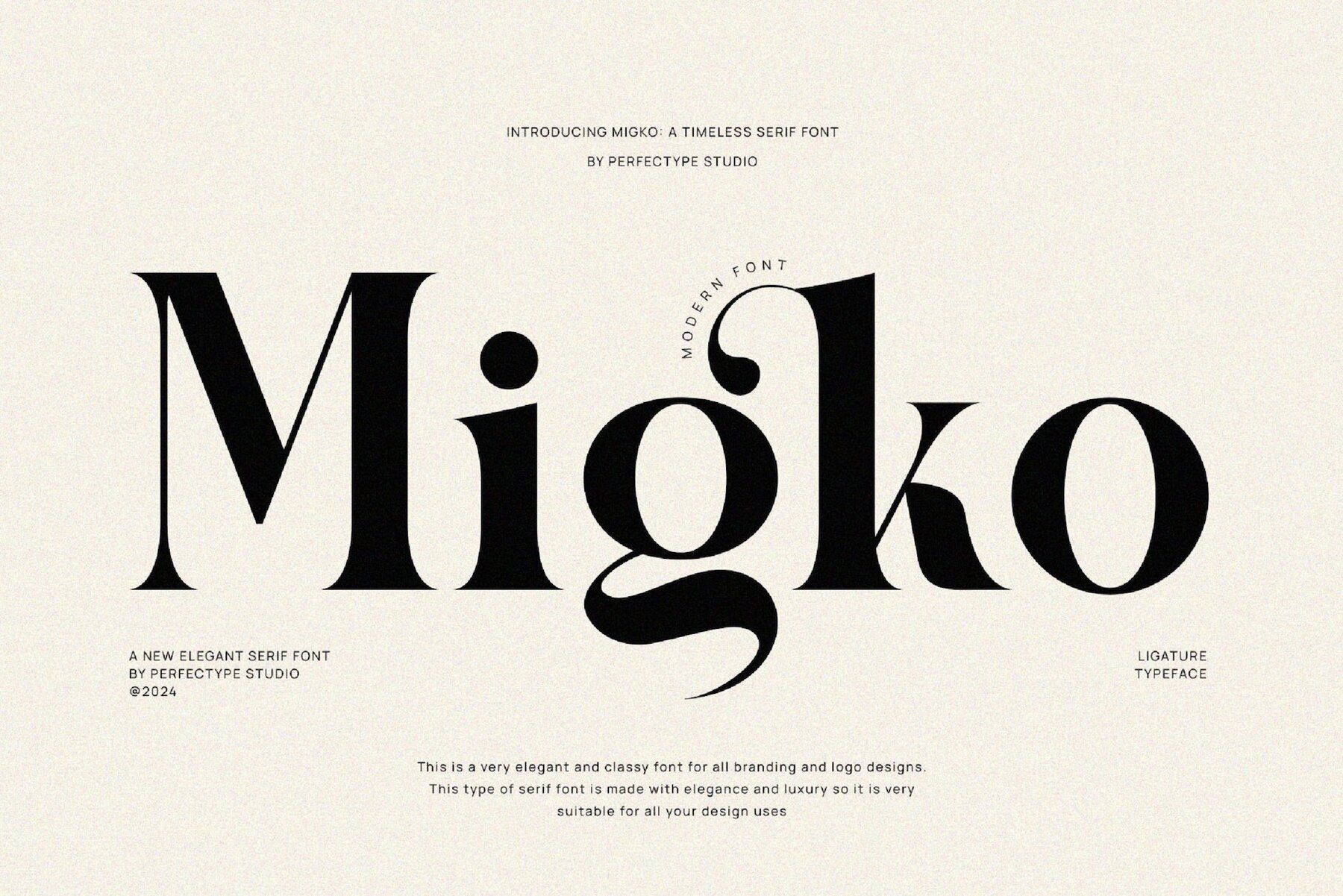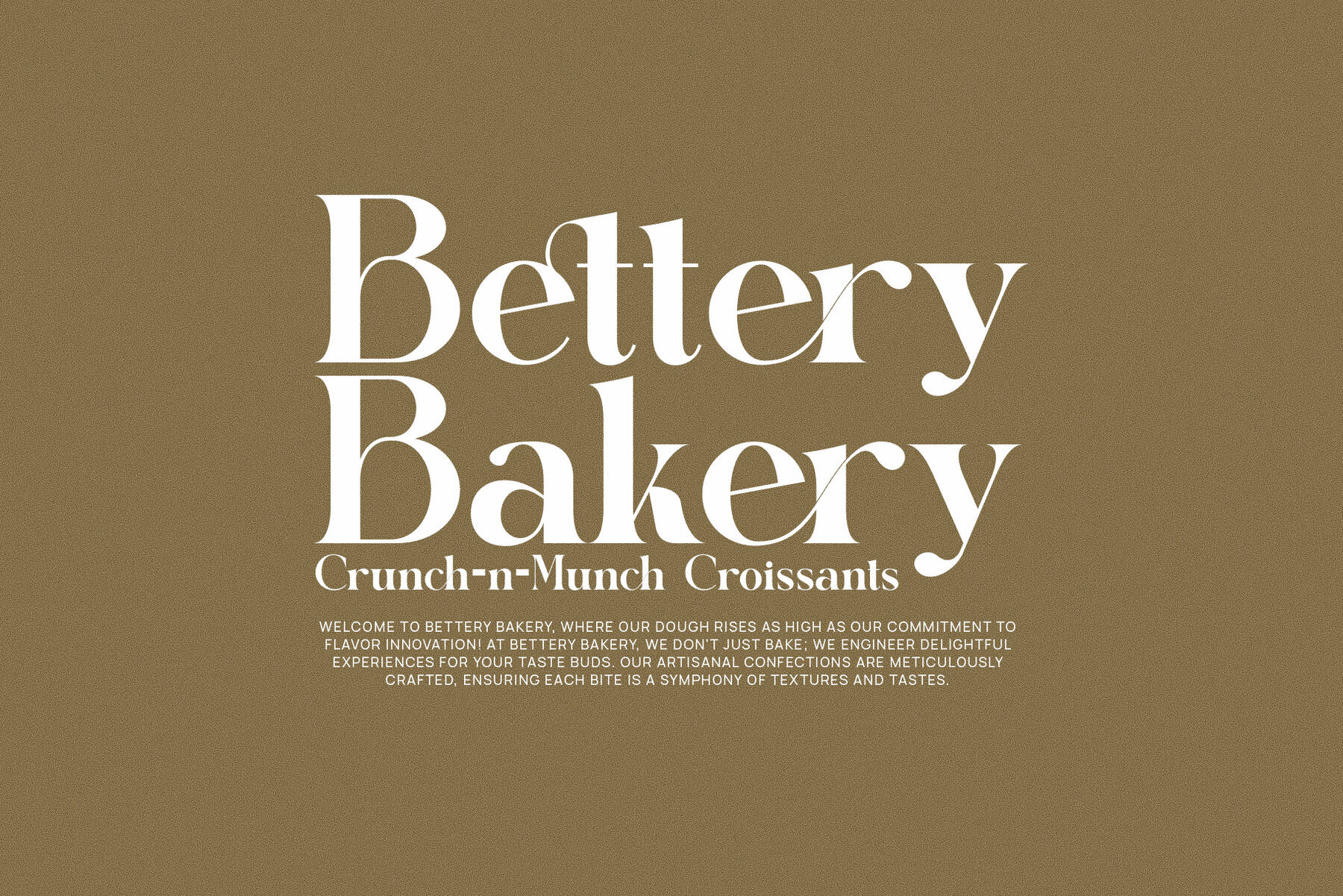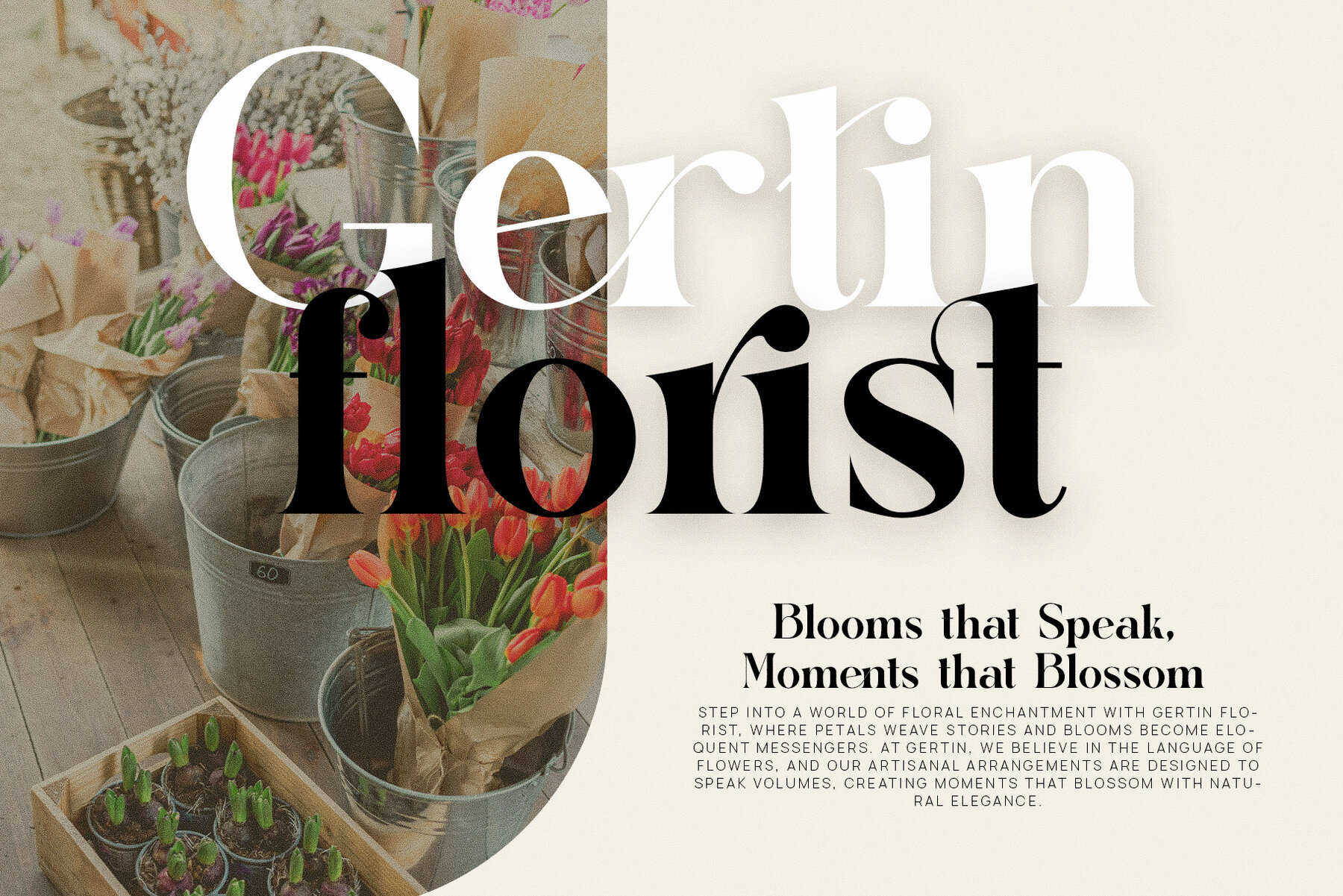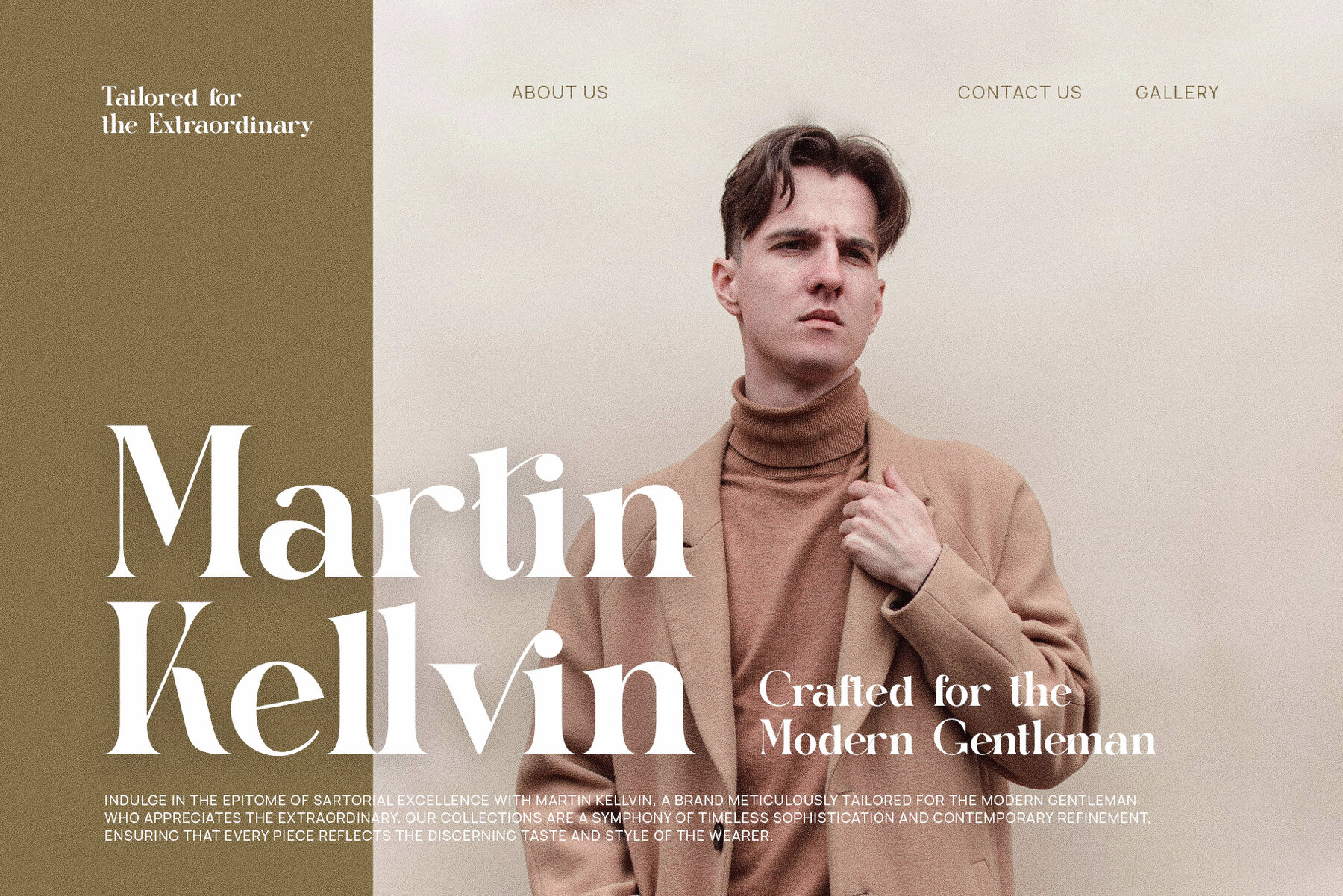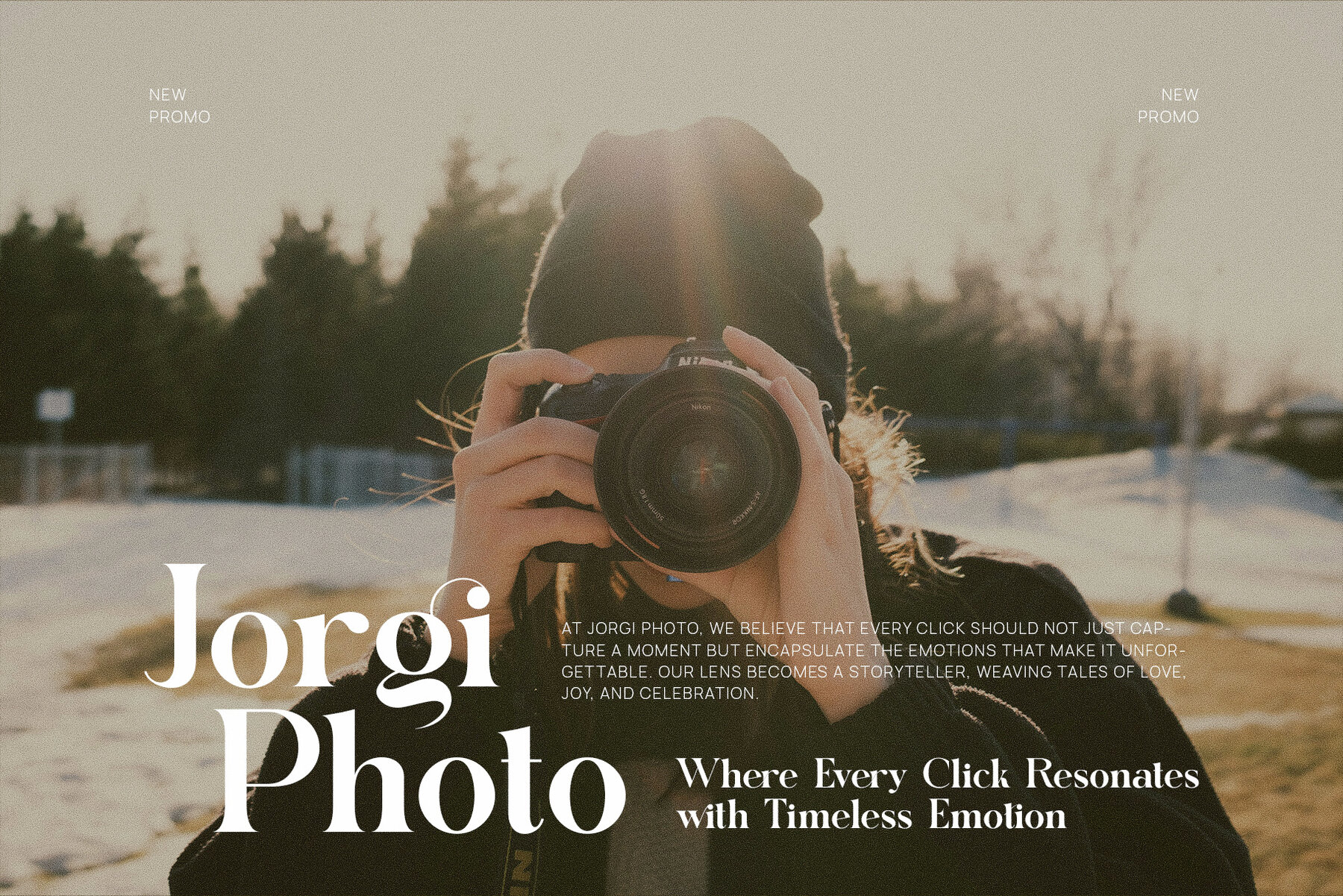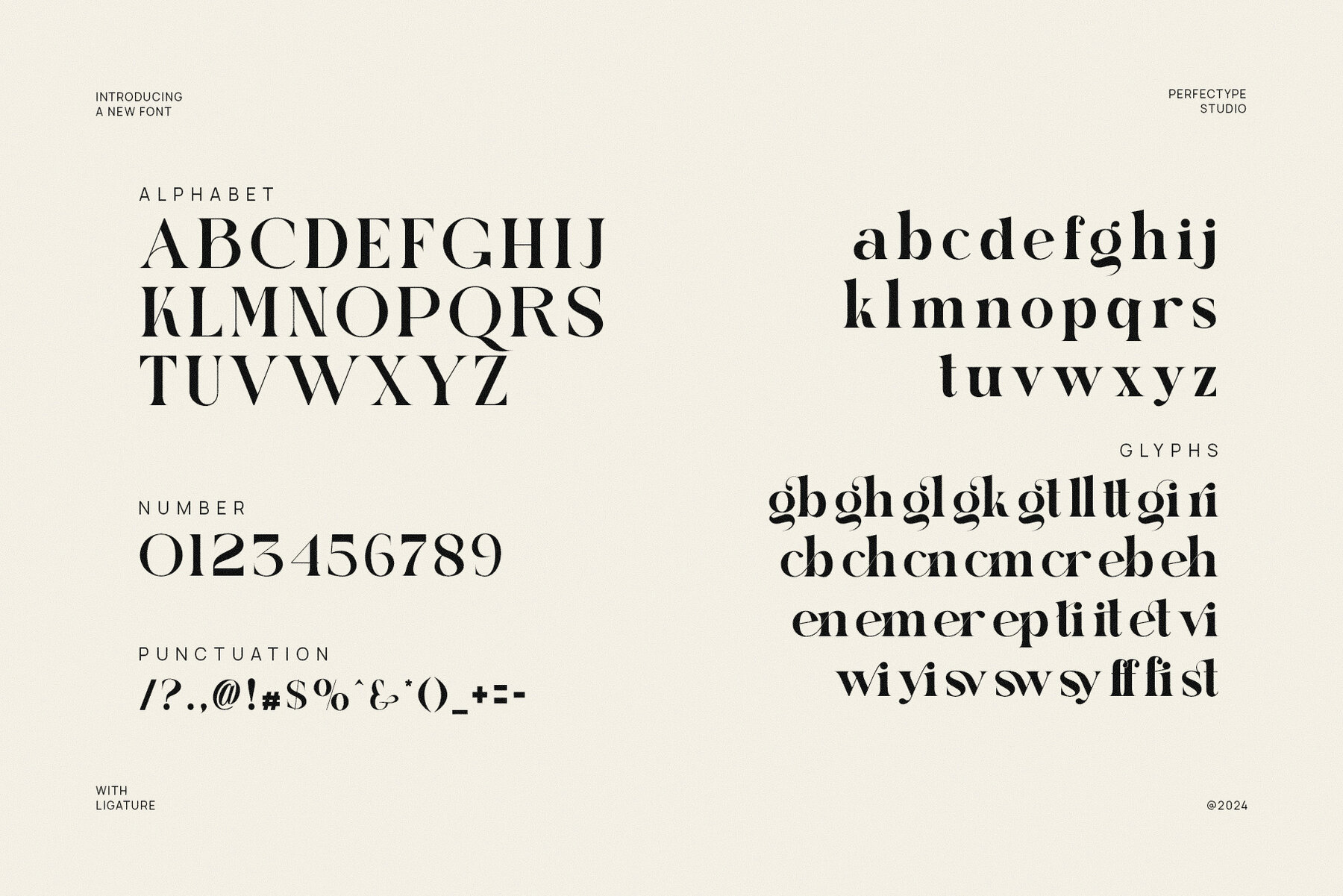
Migko Elegant Serif Font is a contemporary and sophisticated serif typeface that combines timeless charm with modern refinement. Its carefully designed letterforms feature unique shapes and exquisite details, creating an elegant and professional aesthetic. The font’s graceful ligatures and alternate characters enhance its versatility, offering designers the opportunity to craft distinctive, visually appealing typography for a wide range of creative projects. Ideal for high-end branding, Migko shines in logo design, product packaging, and advertising materials. Its elegant and refined appearance makes it perfect for industries such as fashion, luxury, food, and lifestyle brands. Whether you're designing an upscale website, a stylish magazine layout, or a captivating advertisement, Migko provides the perfect balance of elegance and readability, ensuring your message is communicated with sophistication. The versatility of Migko extends beyond headlines, offering excellent legibility for body text as well. The harmonious proportions and smooth curves make it easy on the eyes while maintaining an air of professionalism. Its ligature and alternate features allow for customized, seamless typography, making it an ideal choice for those seeking a modern and polished look with creative flexibility. Migko Elegant Serif Font is the perfect choice for anyone looking to elevate their design with a touch of luxury. With its modern flair and classic appeal, it guarantees to make a lasting impression in any branding, editorial, or advertising project.